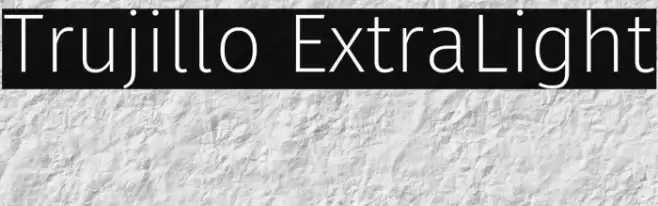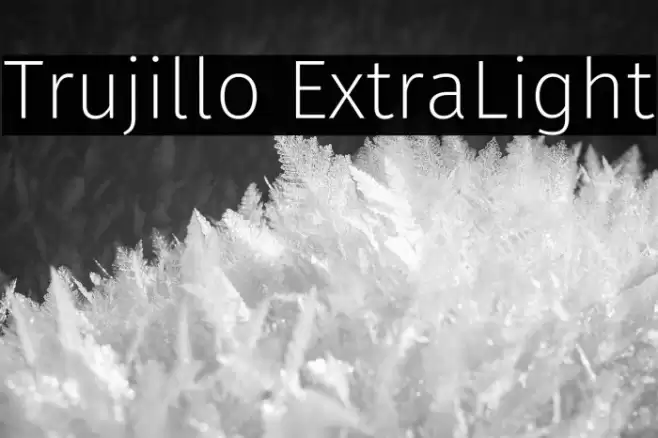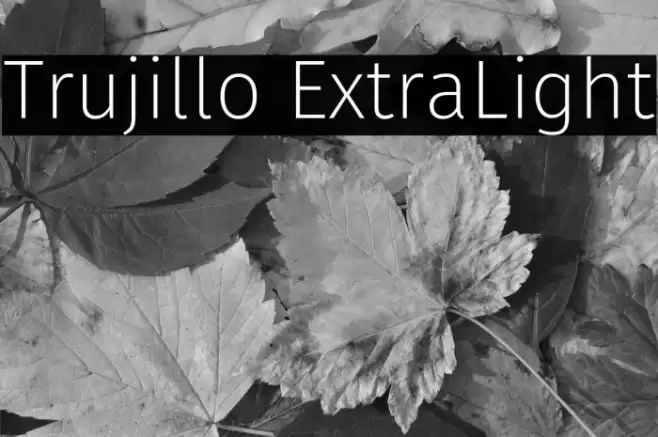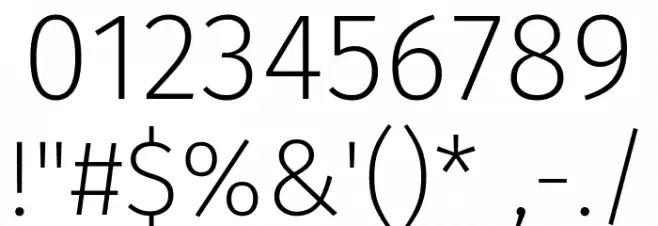
Trujillo ExtraLight Font
Trujillo ExtraLight Description
This font presents a clean and modern aesthetic with its thin, uniform strokes and minimalistic design. The characters are well-proportioned, offering a sense of balance and clarity. Its simplicity and elegance make it highly versatile for various applications. The uppercase and lowercase letters maintain a consistent style, while the numerals and special characters are designed to complement the overall look. The font's extra light weight adds a touch of sophistication, making it suitable for contemporary design projects.
A clean, modern font with thin, uniform strokes and a minimalistic design from Sans Serif fonts.
- Proposed Projects: Ideal for branding, editorial design, websites, and minimalist graphic design projects.